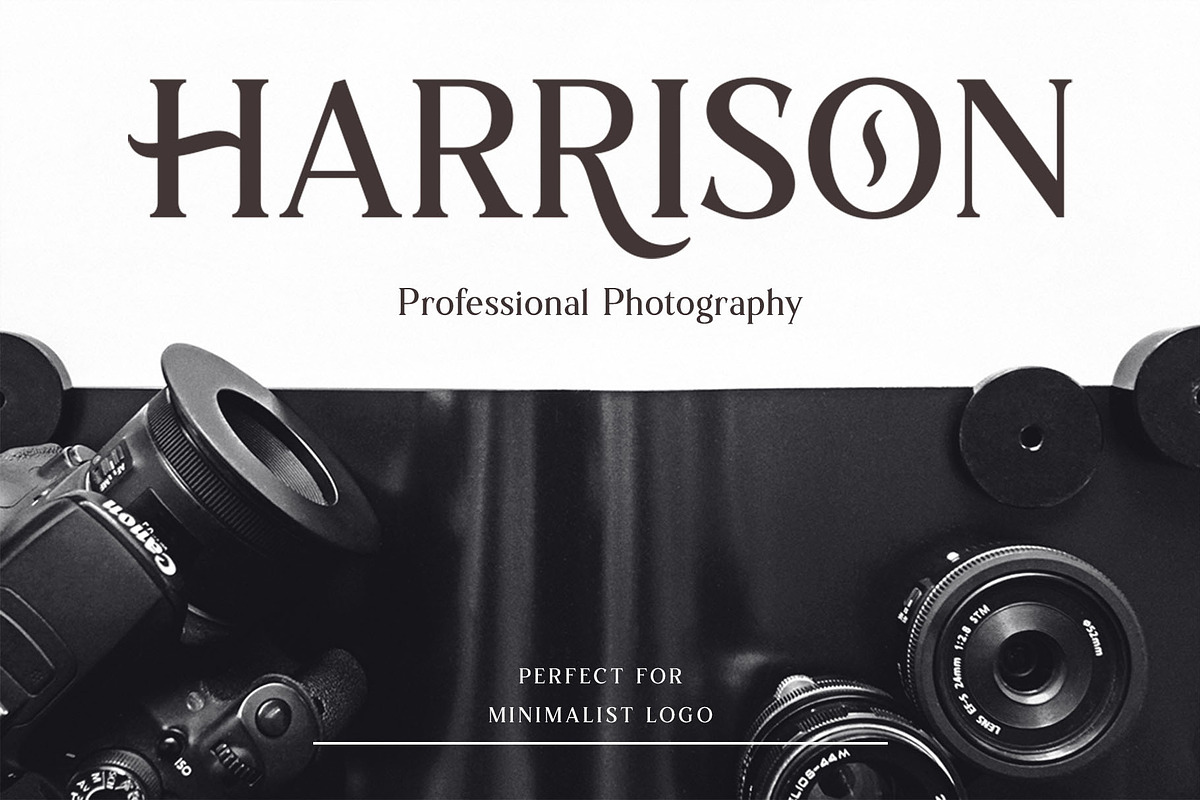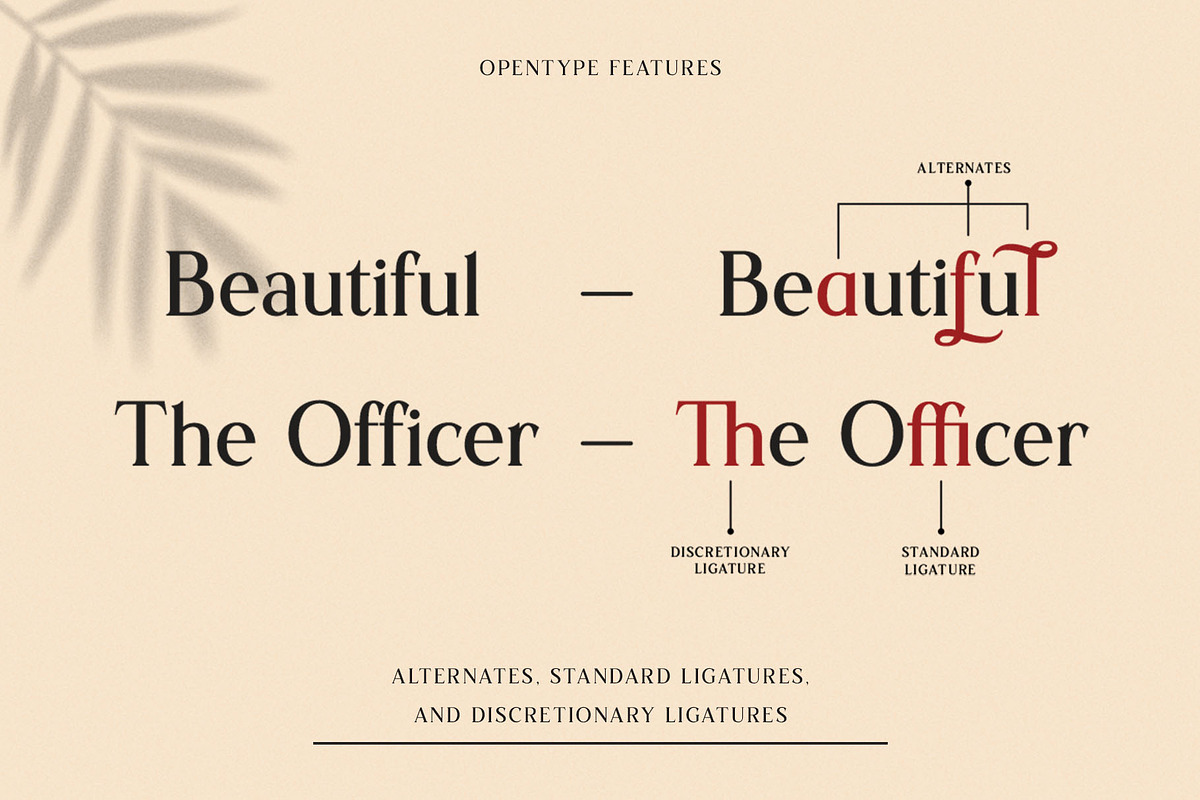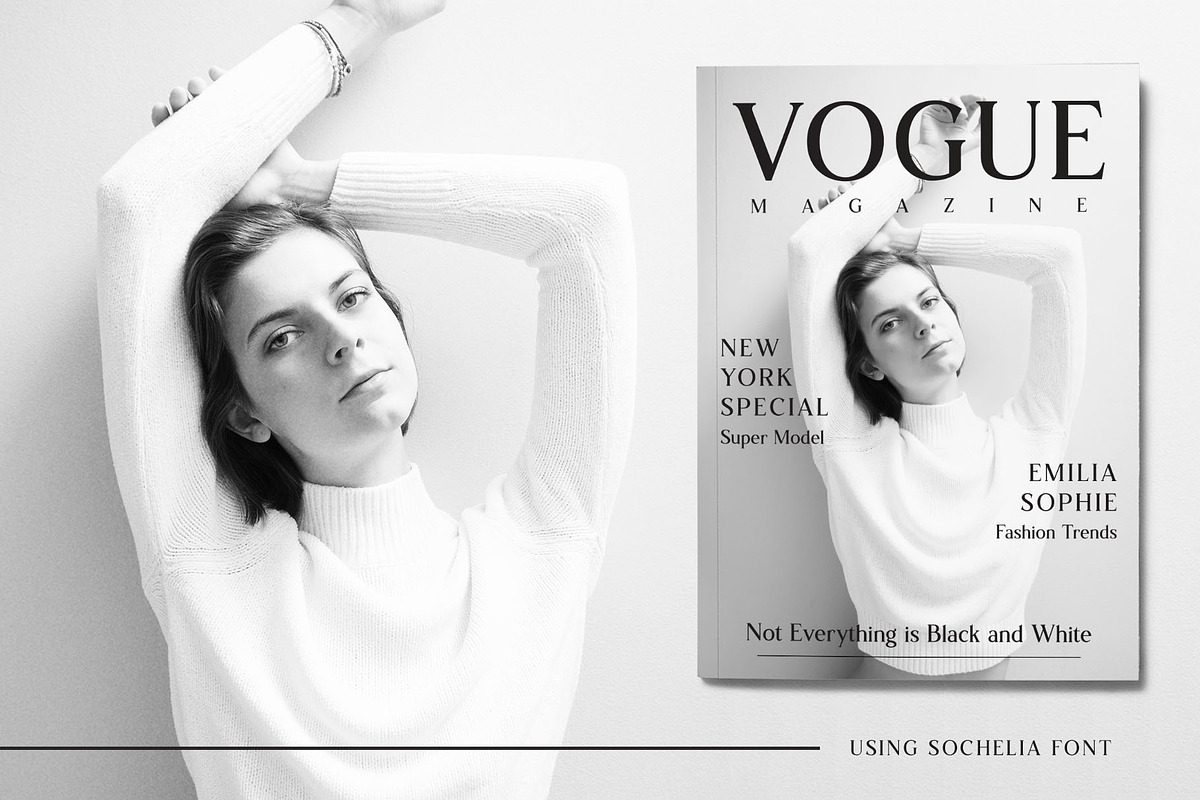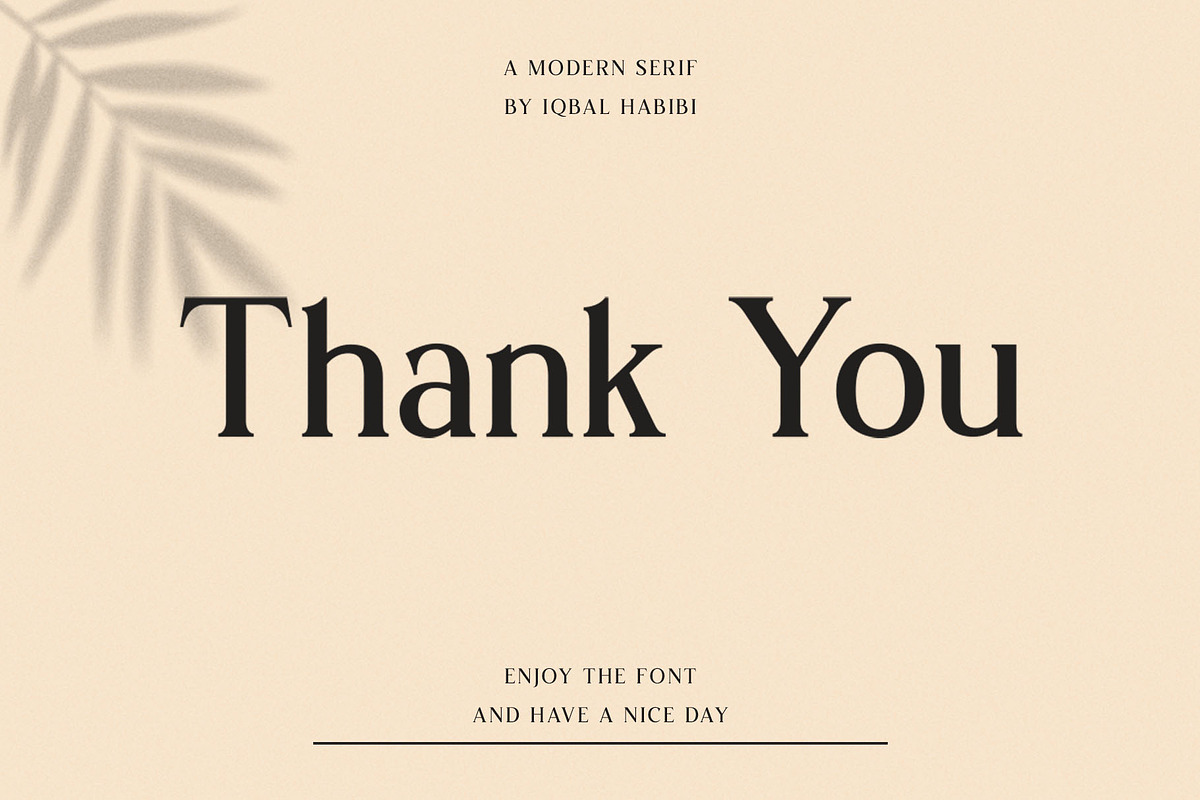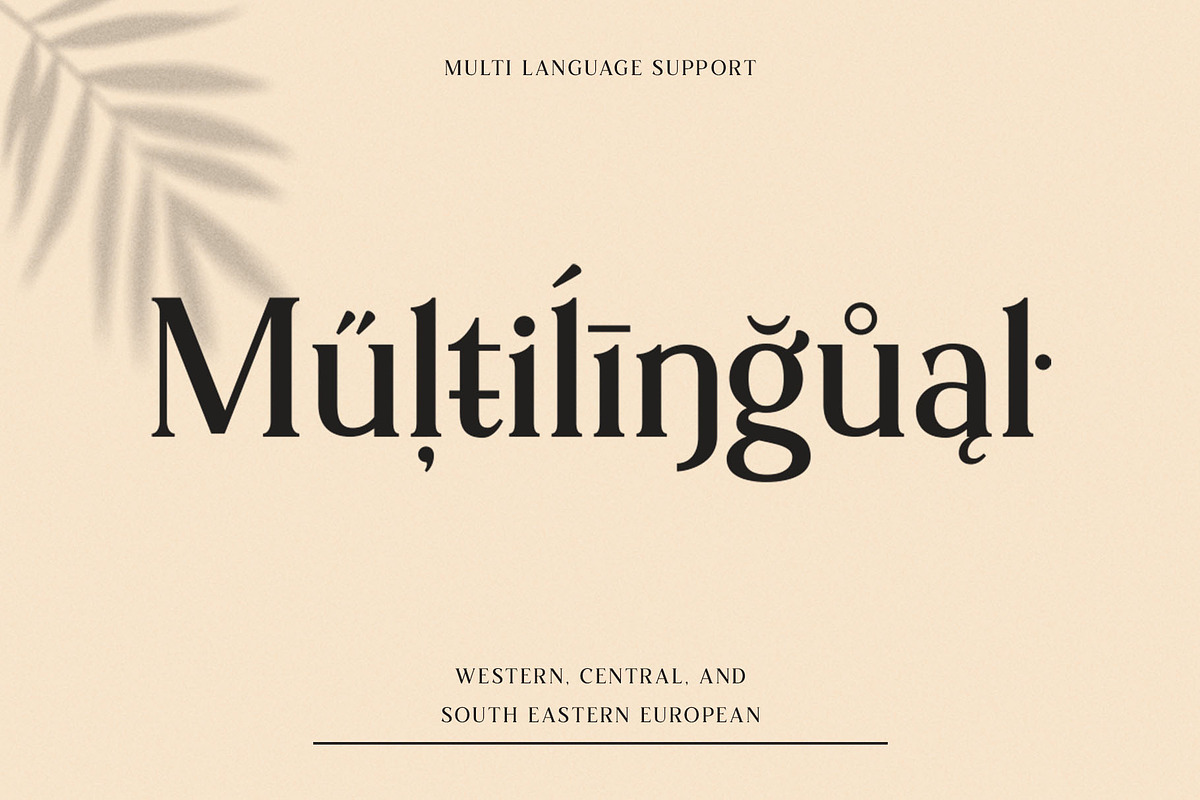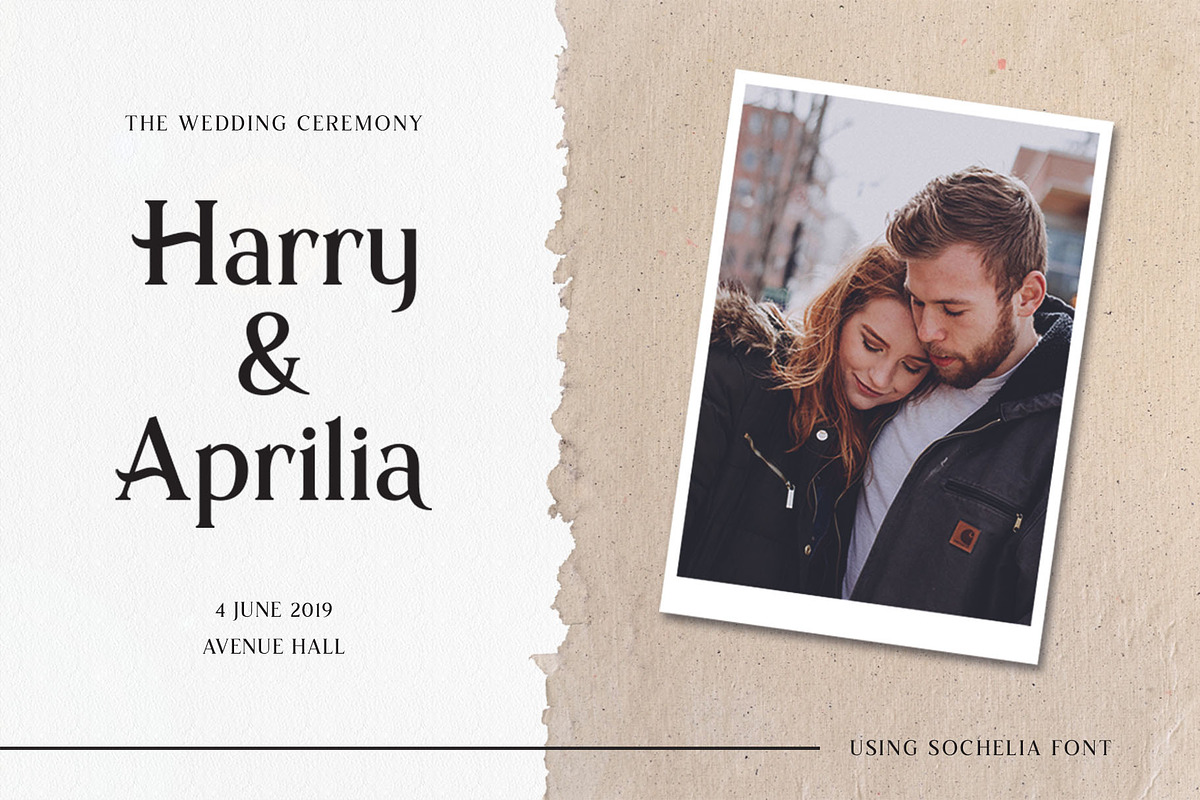
Sochelia - Modern Serif Font
Sochelia is a clean modern serif font that was designed to create a minimalist design. This font contains over 450 glyphs also comes with alternates and ligatures to make your design looks unique and stylish. Perfect for all your design needs like to create minimalist logos, posters, quotes, invitations cards, and many more. It will elevate any design project with its smart and timeless versatility.
-Discretionary ligatures.
-Support Multi Language.
- This font contains over 450 glyphs also comes with alternates and ligatures to make your design looks unique and stylish.
- Alternates.
- Standard ligatures.
- Discretionary ligatures.
- Support Multi Language.